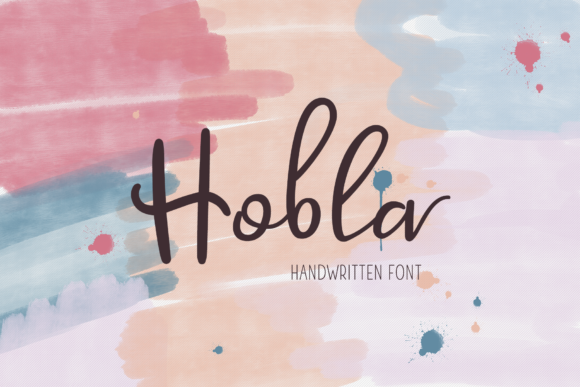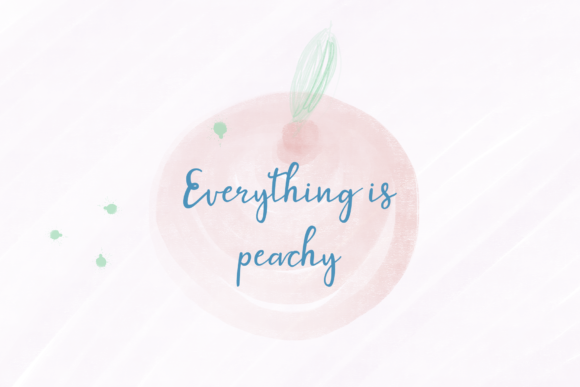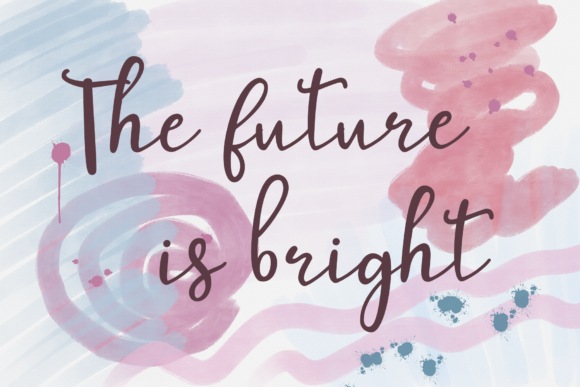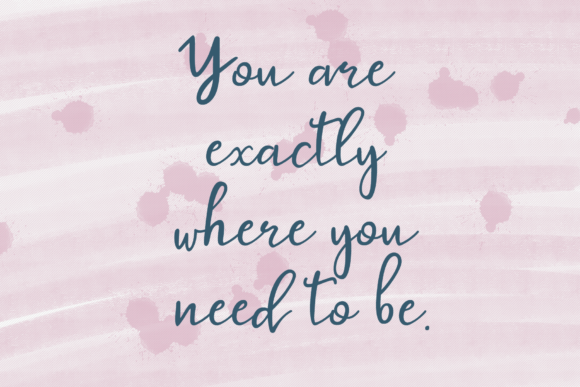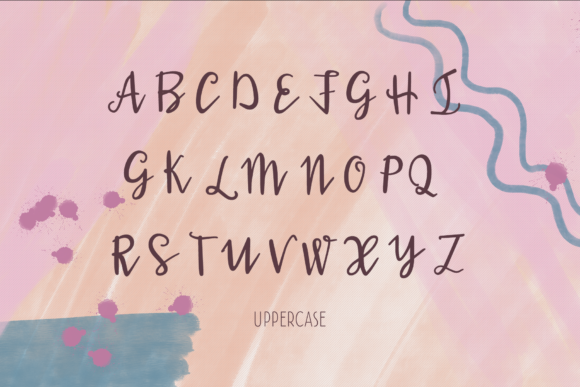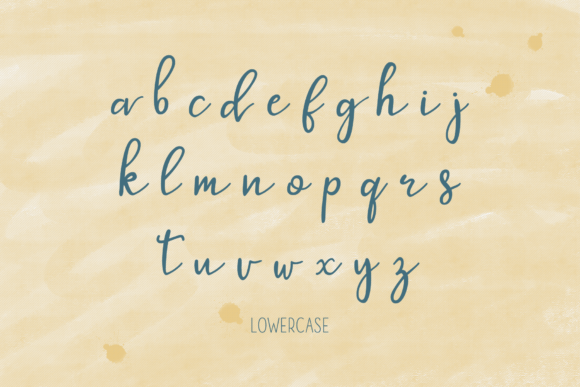
Hobla Font
About Hobla Font
Meet Hobla, a smooth and warm handwritten font. It’s letters have a fun, yet elegant style and are perfect for adding a striking look to your designs!